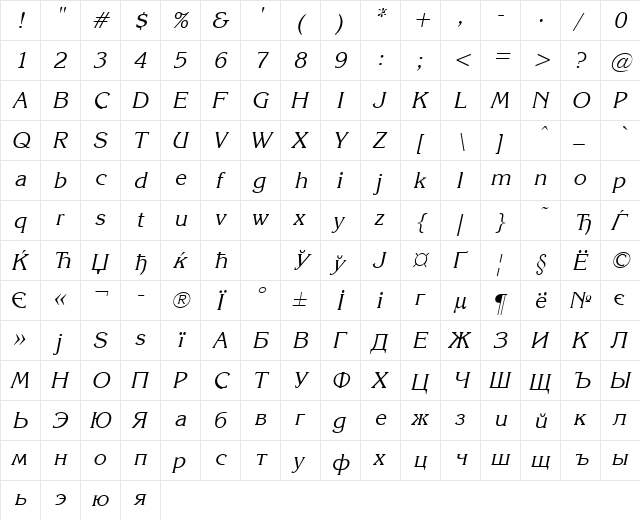
KarinaC Italic
Design Context for KarinaC Typeface
KarinaC is a composed and adaptable typeface that performs quietly and consistently across a wide range of design contexts. Its italic angle brings a sense of urgency and motion to the letterforms.
Pro Tip: Try KarinaC for annotation and caption copy alongside an upright companion — the contrast in angle creates a dynamic but ordered typographic system.